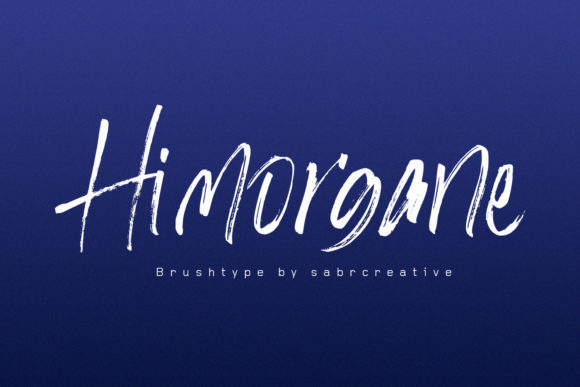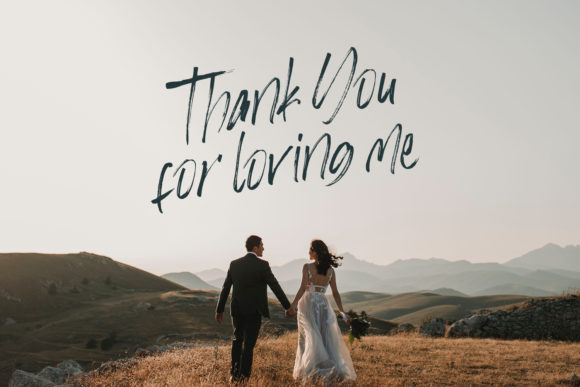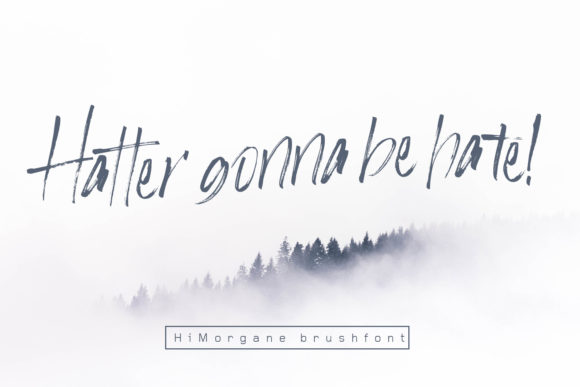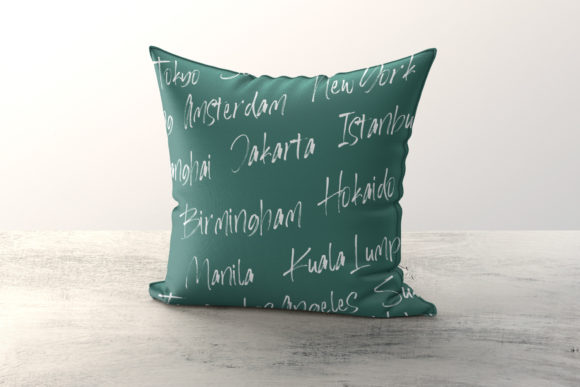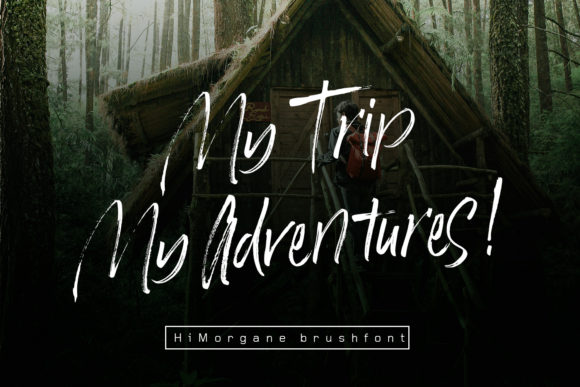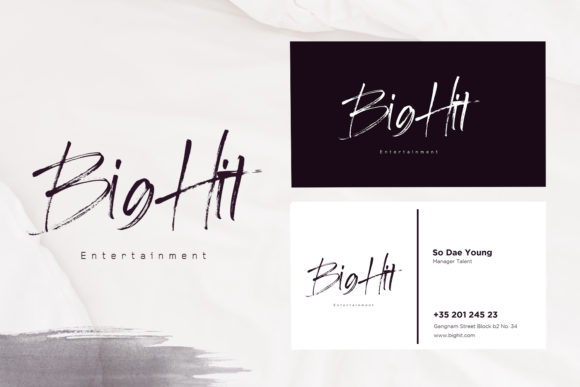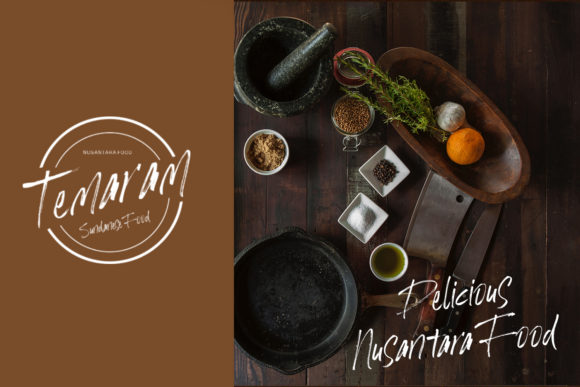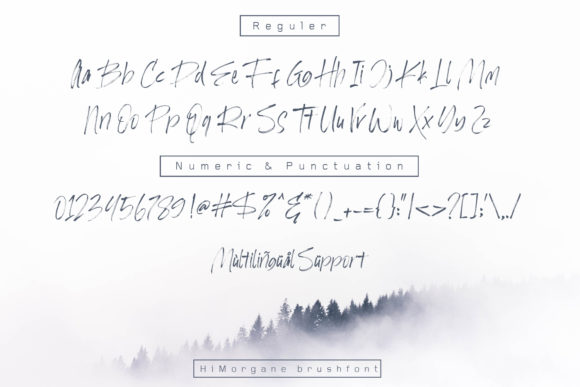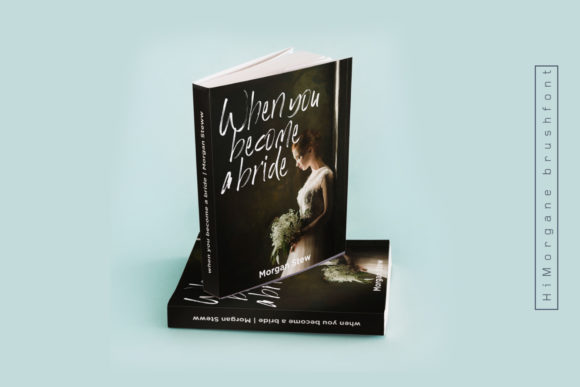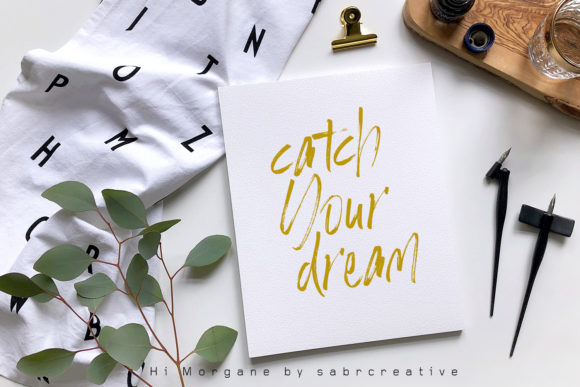
Hi Morgane Font
About Hi Morgane Font
Hi Morgane is a raw and unfiltered brush font with a bold feel. Use it to turn any design project into a true standout.